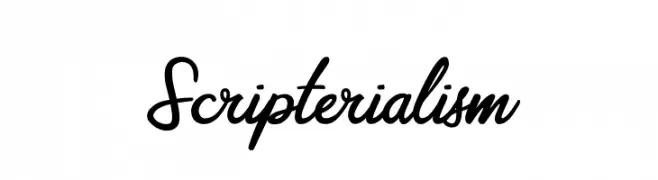
A lively, cursive font with bold strokes and a handwritten feel.
A bold, expressive handwritten font with fluid strokes and dynamic style.
A fluid, cursive script font with interconnected strokes and a handwritten feel.
A dynamic, flowing script font with a natural handwriting style.
A bold, expressive handwritten font with dynamic strokes and playful curves.